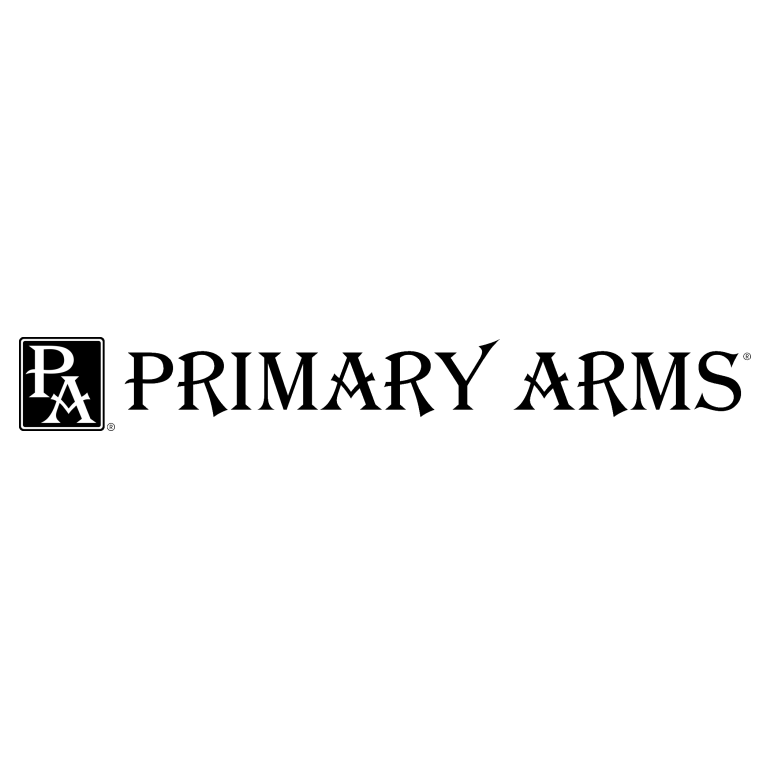
Primary Arms Font
The caps in the logo are from Algerian, a decorative serif font created in the early 20th century by British Foundry Stephenson, Blake, and Co.